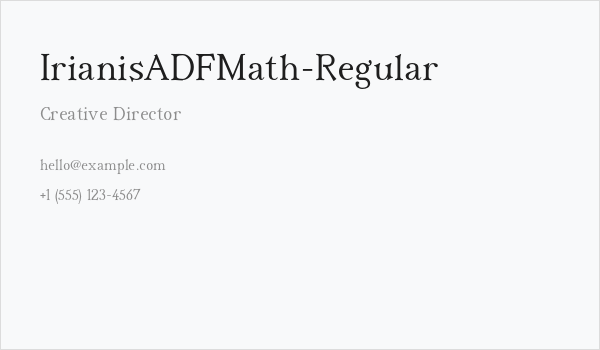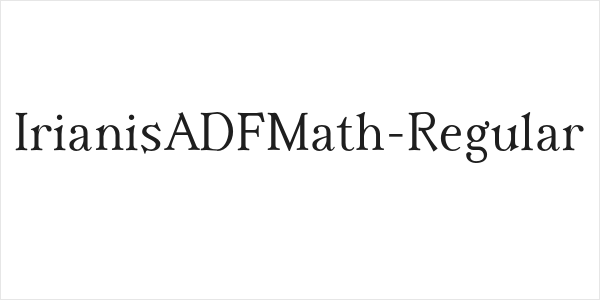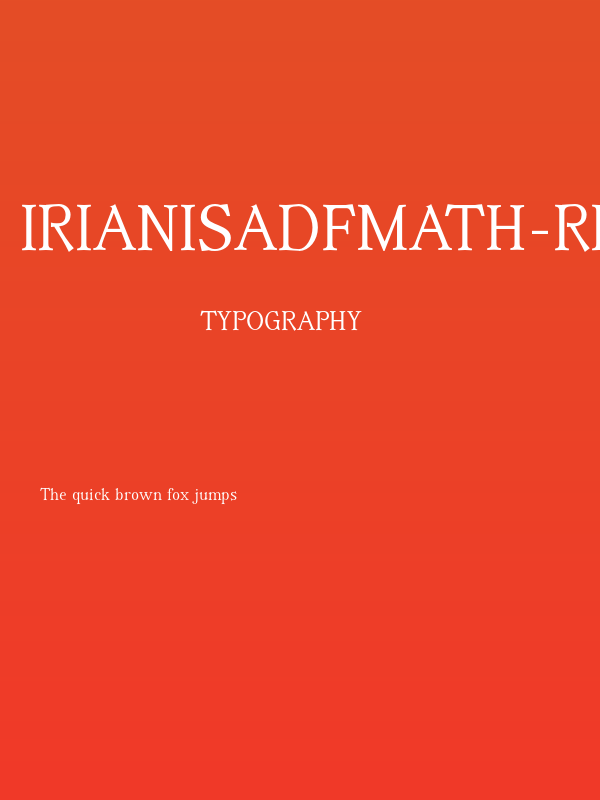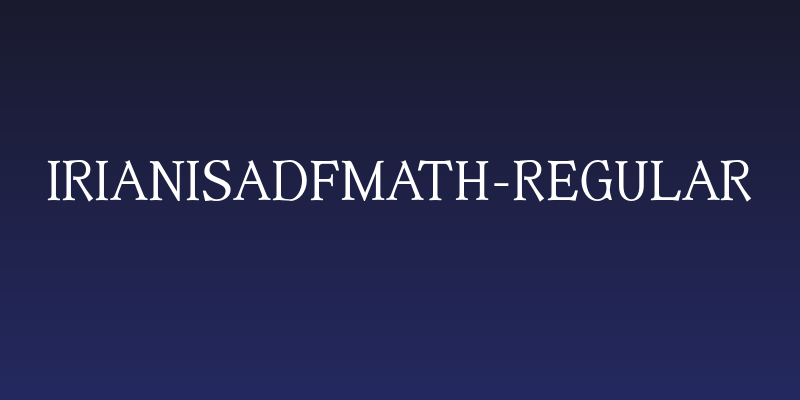
IrianisADFMath-Regular Font
IrianisADFMath-Regular Description
This font exhibits a classic serif style with elegant and refined strokes. The uppercase letters are bold and commanding, while the lowercase letters maintain a graceful and balanced appearance. The numerals are clear and distinct, making them easily readable. The special characters are well-integrated, maintaining the overall aesthetic of the typeface. The serifs are pronounced, adding a touch of sophistication and tradition. This font is versatile, suitable for both formal and creative applications, offering a timeless appeal.
| Proposed Projects | Ideal for book covers, editorial design, formal invitations, and branding projects that require a touch of elegance and tradition. |